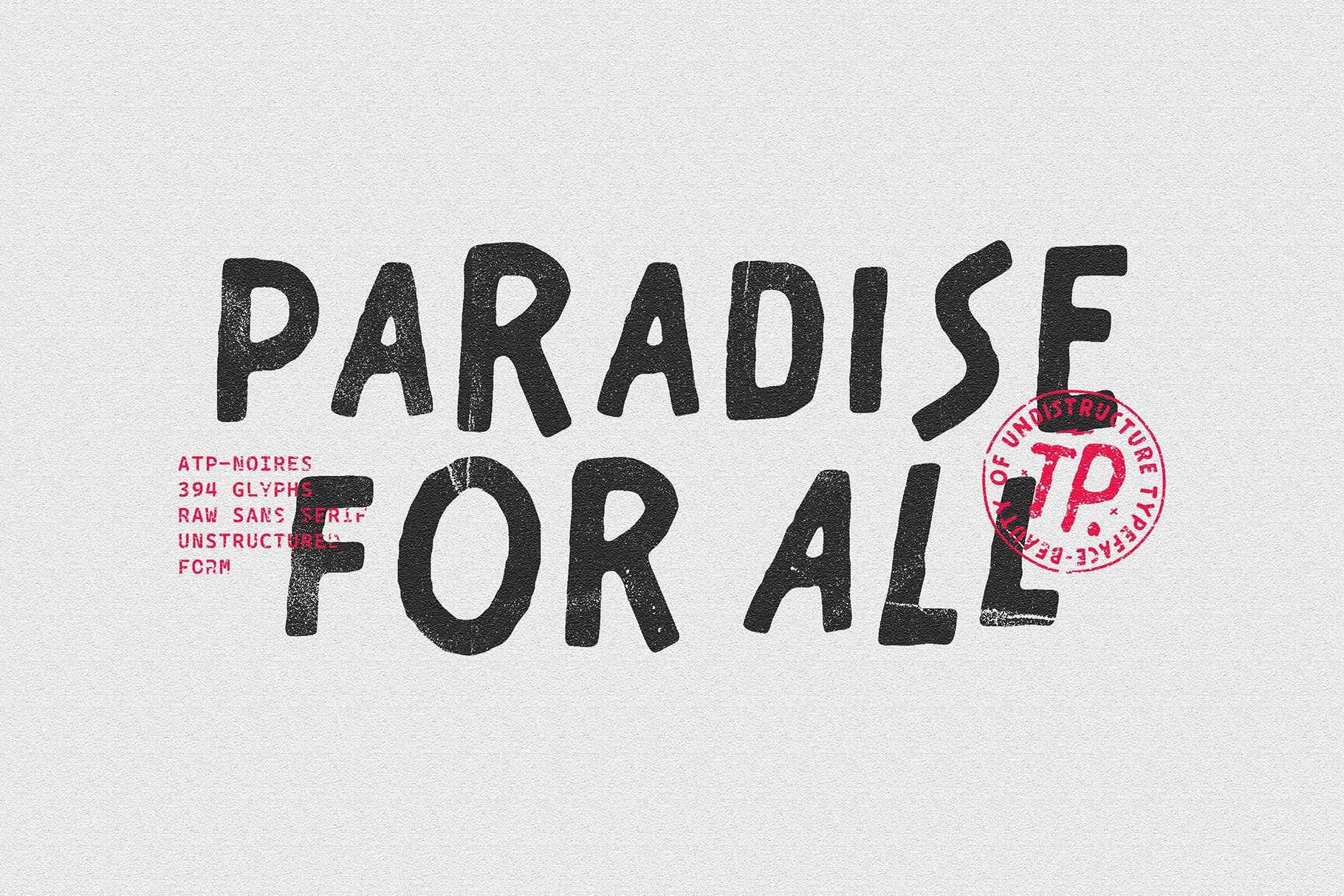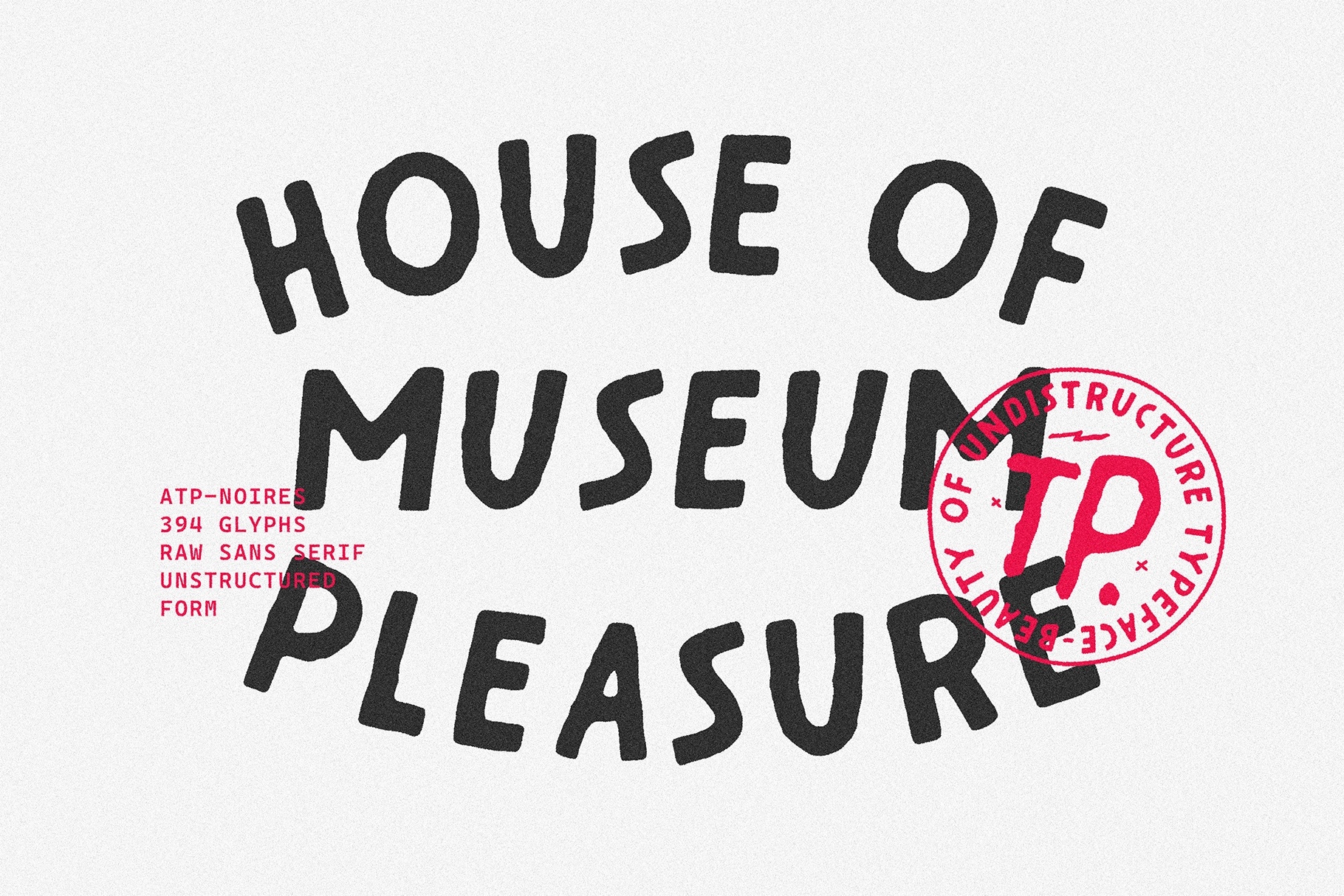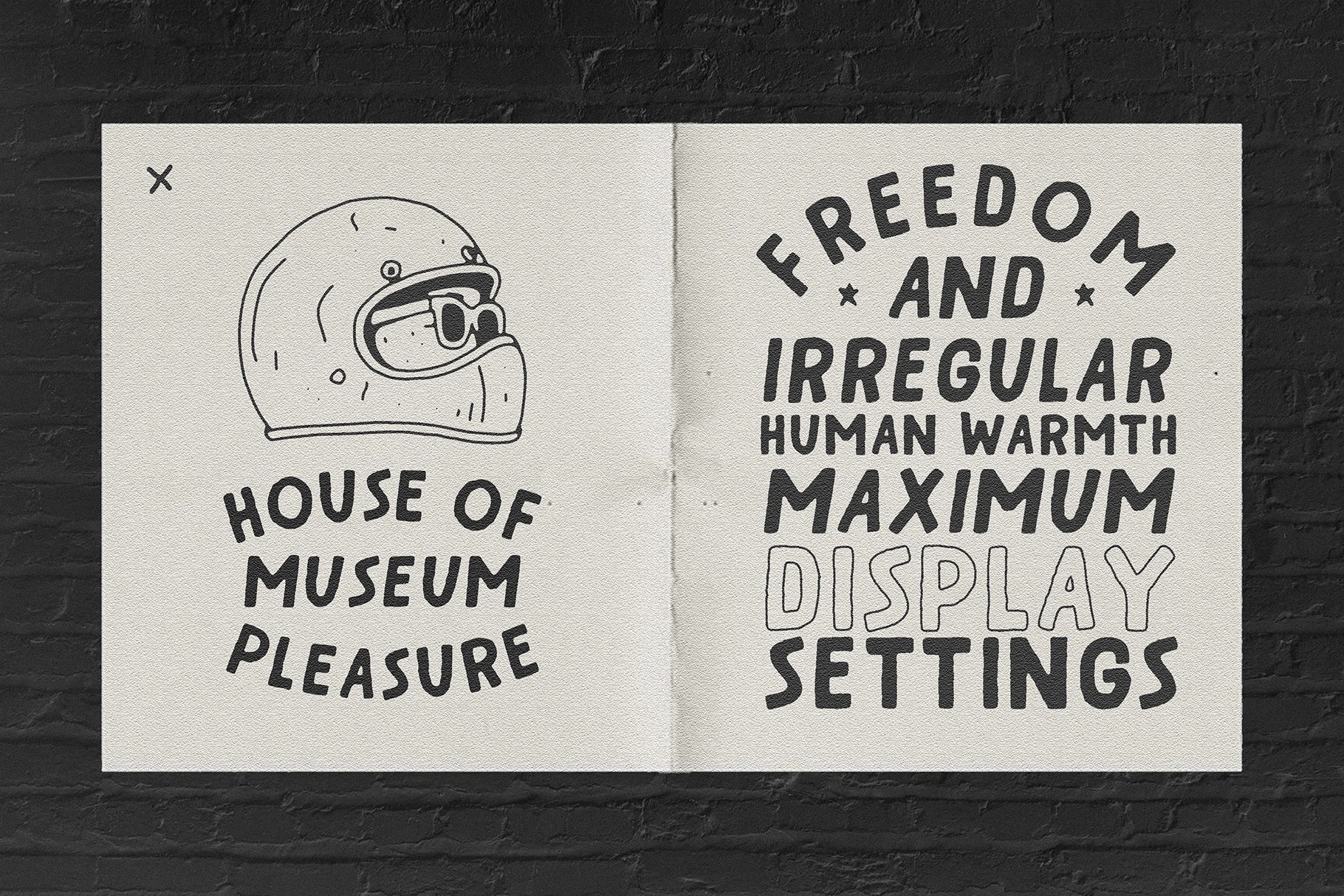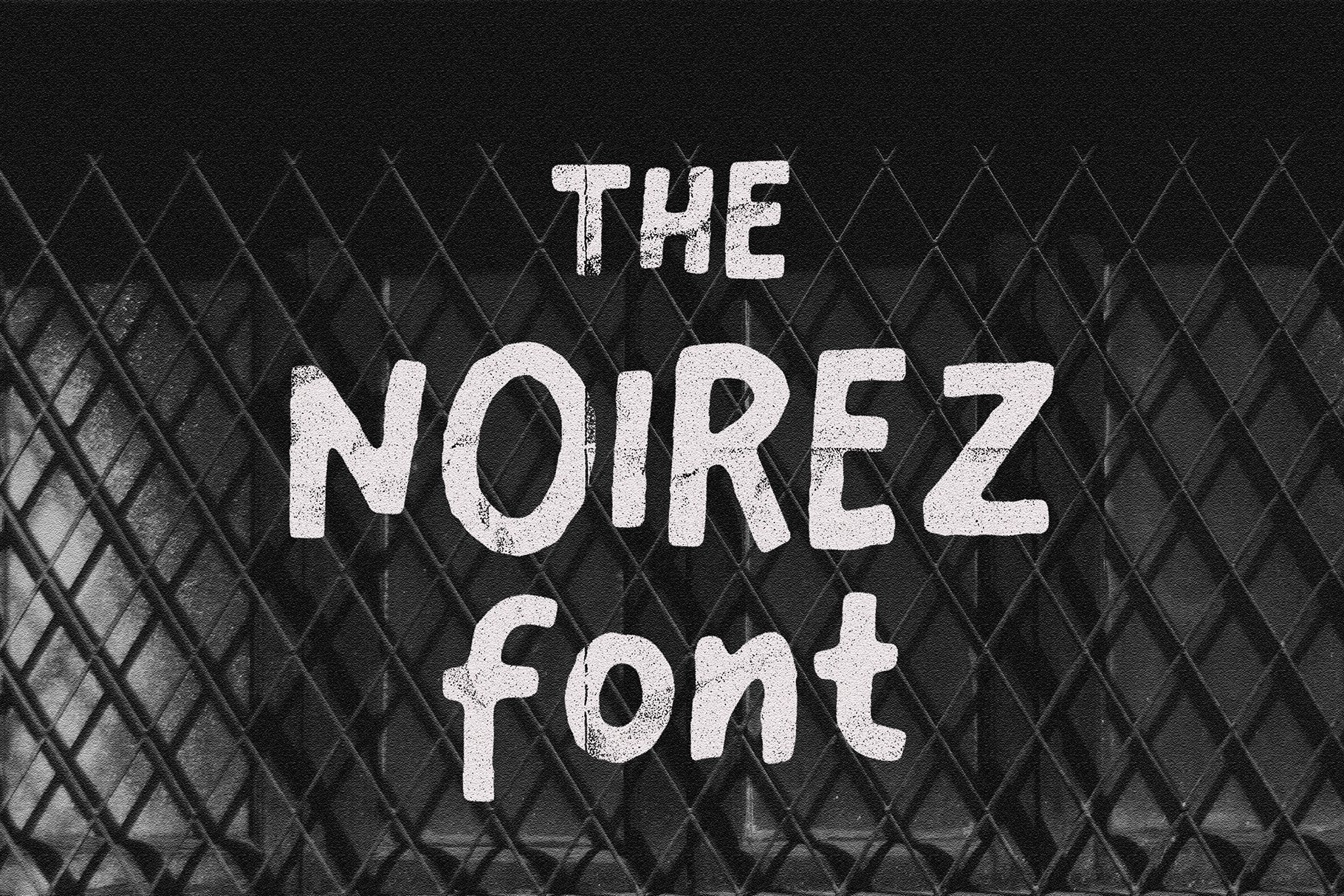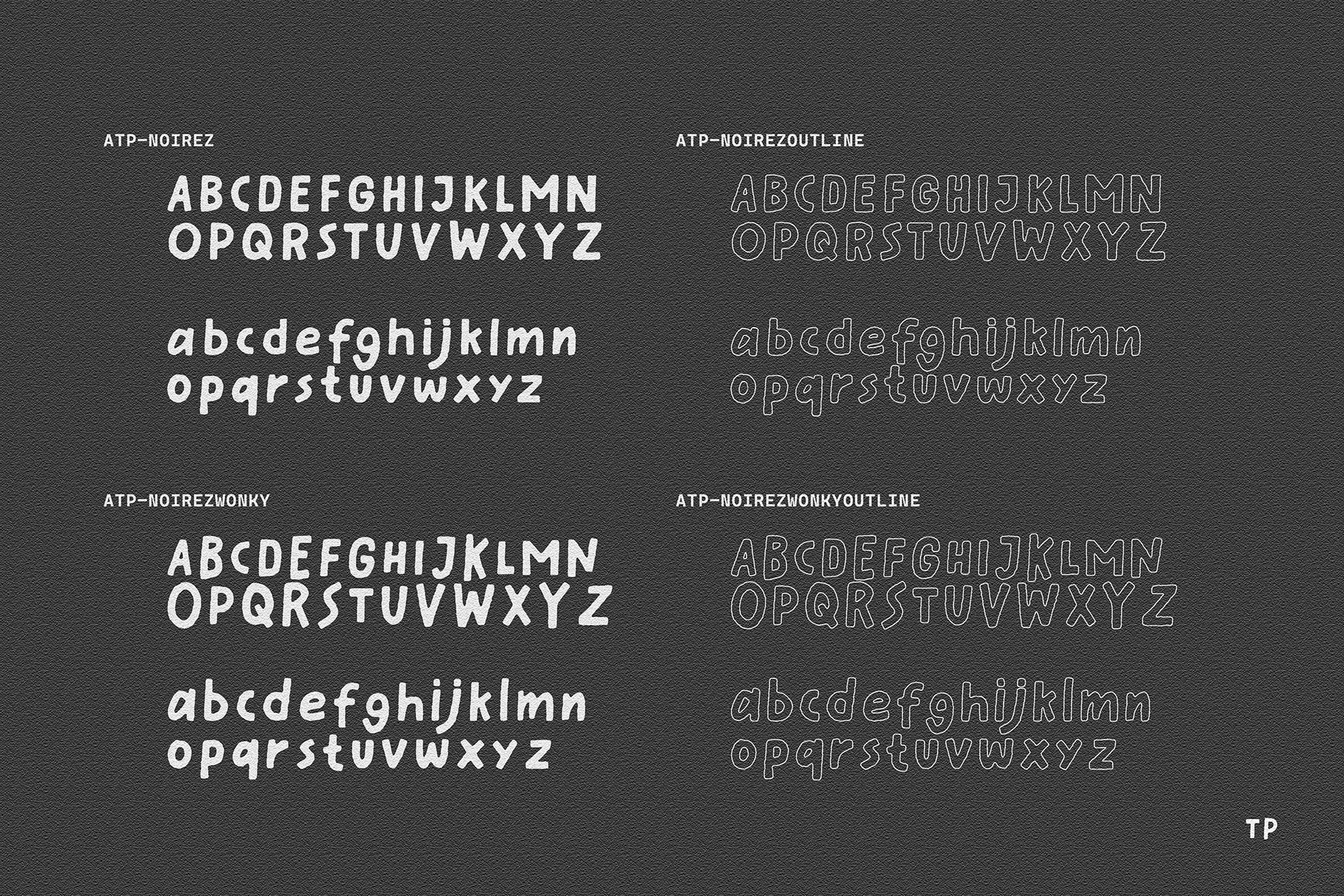
Noirez - Vintage Sans Serif Font
ATP-Noirez
Wonky
This bold sans serif font brings a laid-back but rebellious vibe. Its hand-drawn strokes feel rough around the edges, giving it that natural, unpolished charm. The letters don’t try to be perfect and that’s exactly what makes them stand out. Bold, confident, yet casual, this font is all about making a statement without losing its relaxed energy.